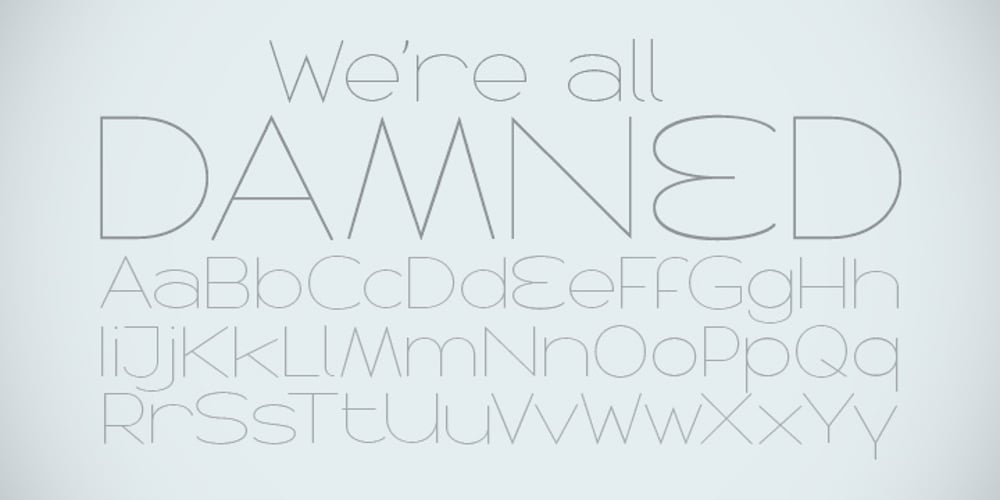
CA Sensuell Font Family was designed by Stefan Claudius and published by Cape Arcona Type Foundry. CA Sensuell contains 1 styles and family package options. Stefan Claudius developed this font while he was sitting in a small chalet in Denmark with a hot wood-oven and nothing but snow outside. Probably the amount of white led him to make it so thin and to have as much space between the lines as possible. If you have that in mind, it looks best in large sizes.